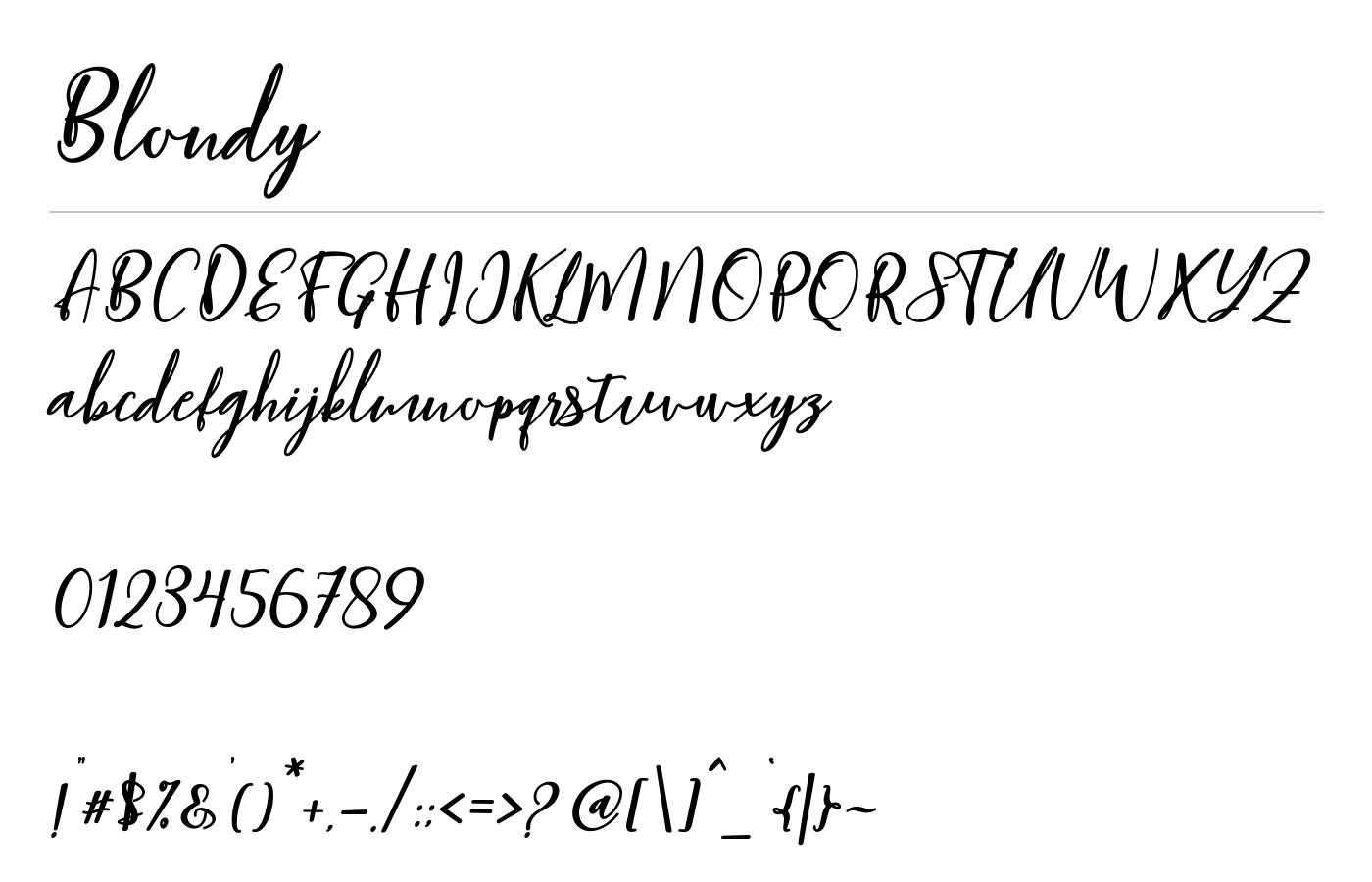
Blondy is a lively and elegant script font with a smooth, handwritten feel, characterized by its medium weight and flowing, slightly condensed letterforms. Its well-balanced stroke contrast and natural curves give it a graceful yet approachable personality, making it perfect for stylish branding, invitations, and feminine design projects. This font works beautifully in headlines and logos where a personal, charming touch is desired.
Blondy Font